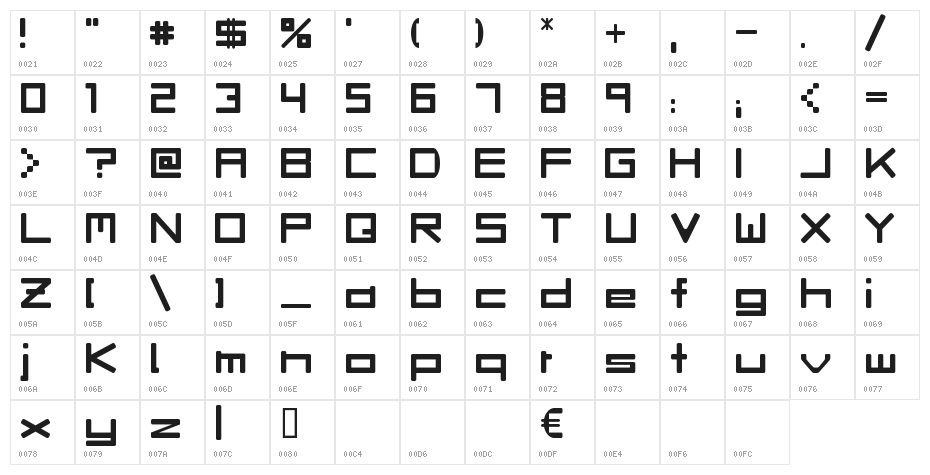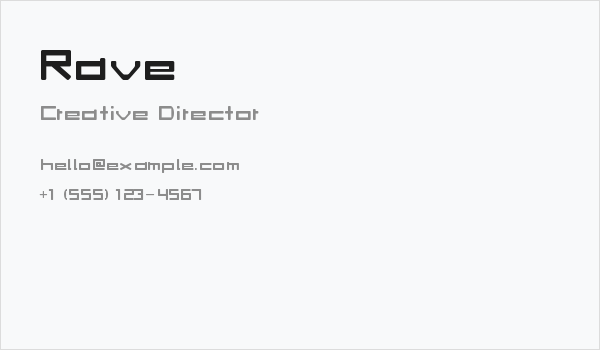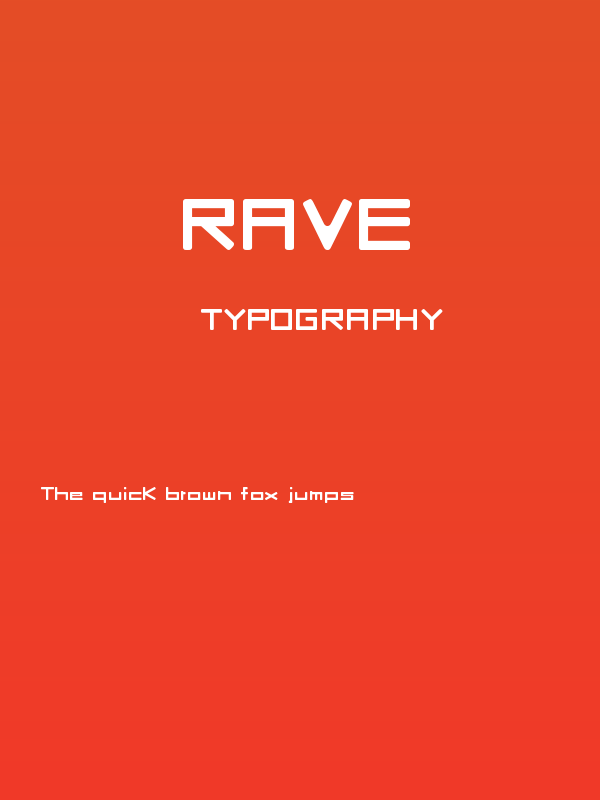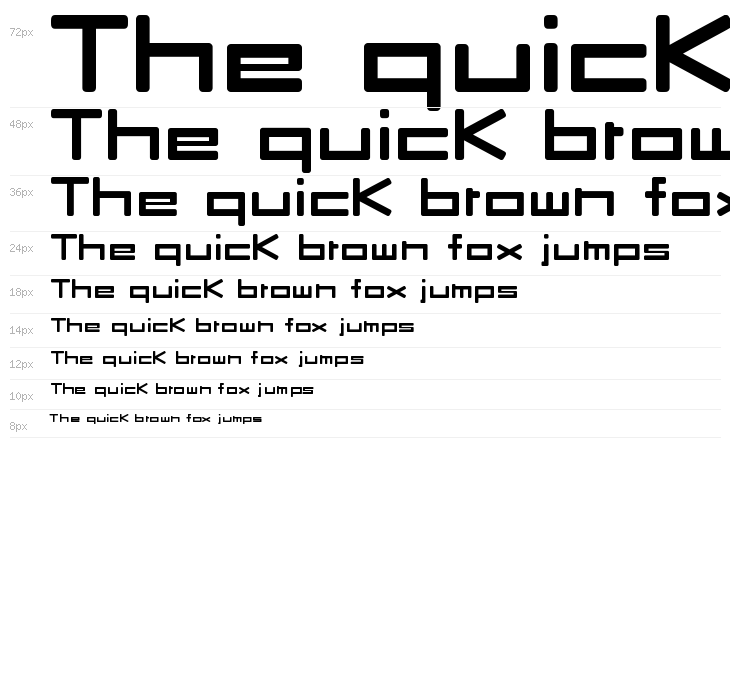
Rave Font
Rave Description
This font features a modern, geometric design with a strong emphasis on clean lines and uniformity. The characters are constructed with a consistent stroke width, giving it a bold and structured appearance. The uppercase and lowercase letters maintain a cohesive style, with slightly rounded corners that soften the overall look. The numerals and special characters follow the same design principles, ensuring a harmonious visual experience. This font is ideal for projects that require a futuristic or tech-inspired aesthetic, offering a balance between readability and distinctive style.
| Use Case | Headlines, Logos, Digital Interfaces |
| Proposed Projects | Ideal for tech branding, digital interfaces, futuristic posters, and modern logos. |